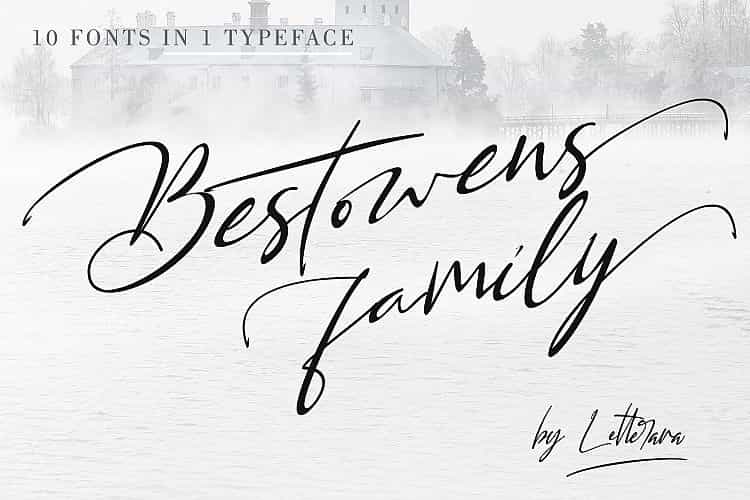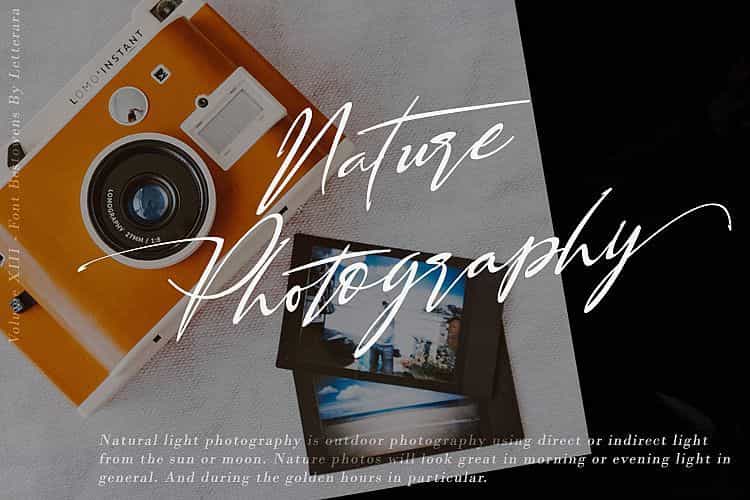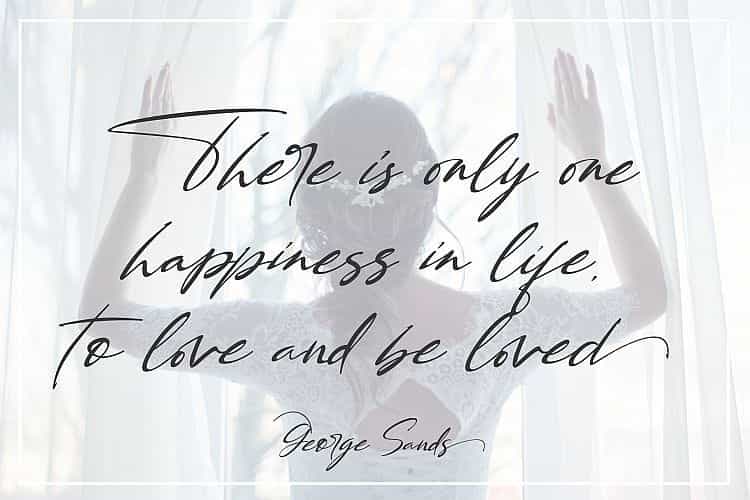
Bestowens Family is the perfect handwritten font: Delicate, cute, pure, tender, and rather subtle, this extraordinary typeface will be perfect to use in any design work! Bestowens Family font is a script font that was designed to mimic the style of handwritten fonts as closely as possible due to the inclusion of 44 ligatures.